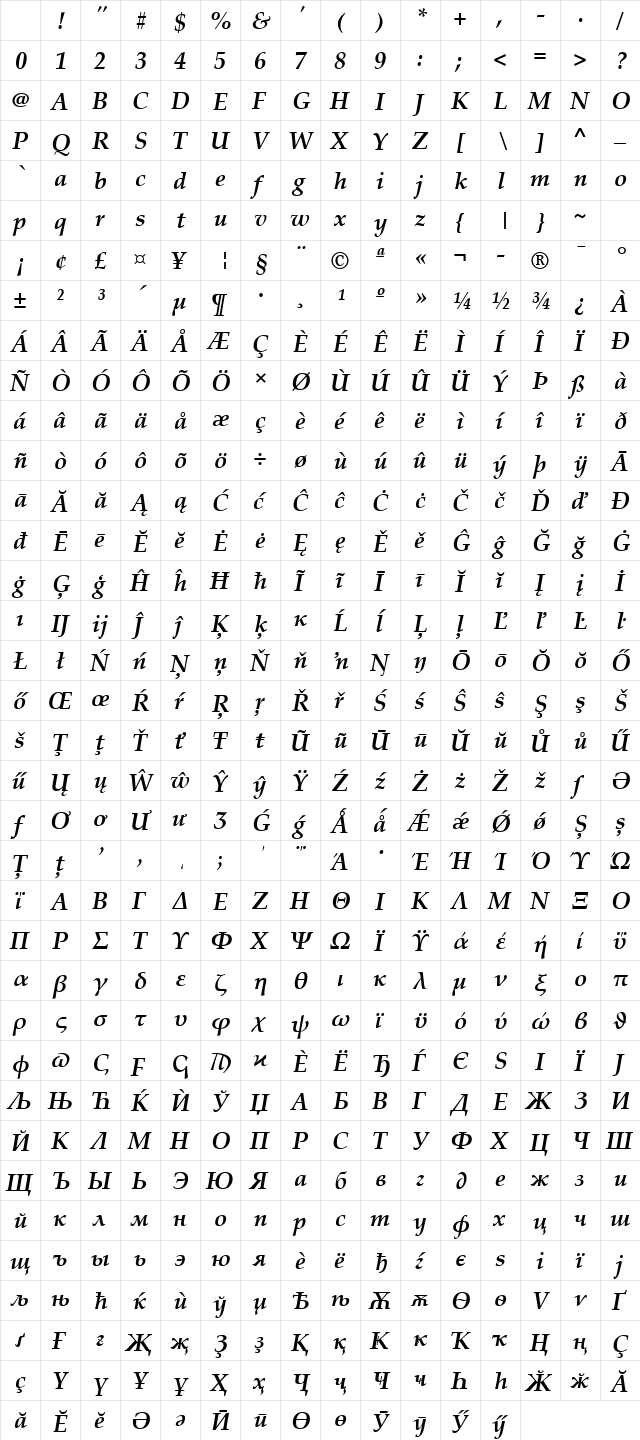
Complete Palatino Linotype Bold Italic glyph index. Displaying only characters natively supported by Palatino Linotype Bold Italic font.
Palatino Linotype is a composed and adaptable typeface that performs quietly and consistently across a wide range of design contexts. The slanted form adds forward momentum and visual energy. Its bold stroke weight gives it real presence on the page.
Pro Tip: Use Palatino Linotype for emphasis, pull quotes, and subheadings where its slanted energy can add rhythm to the layout.